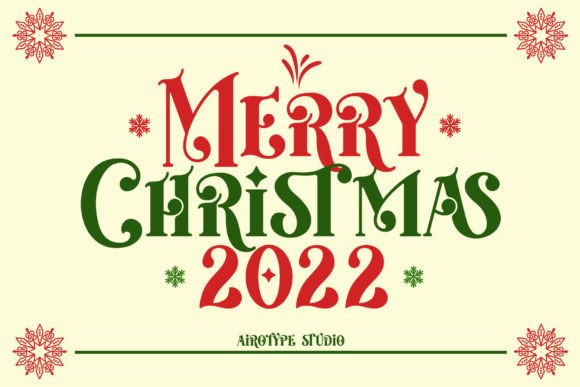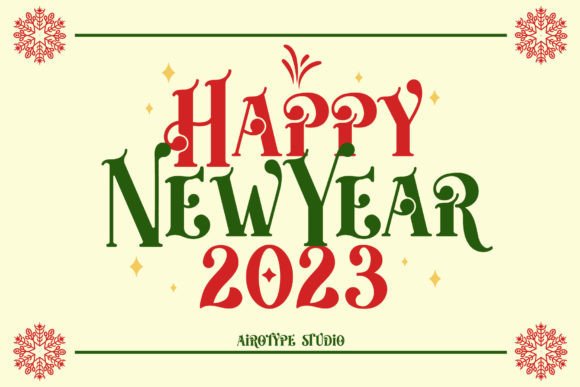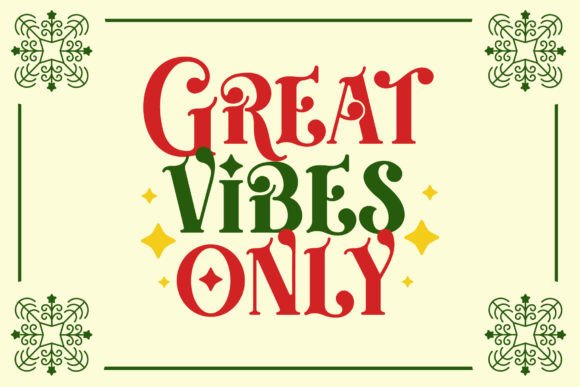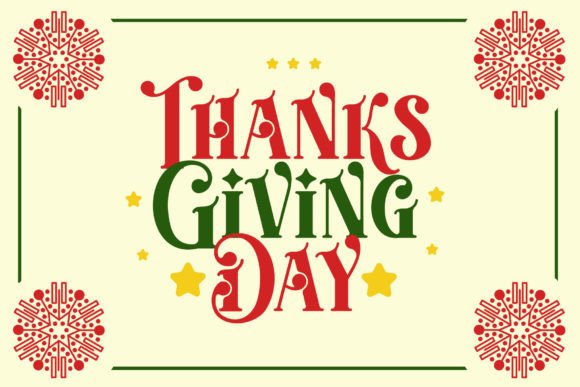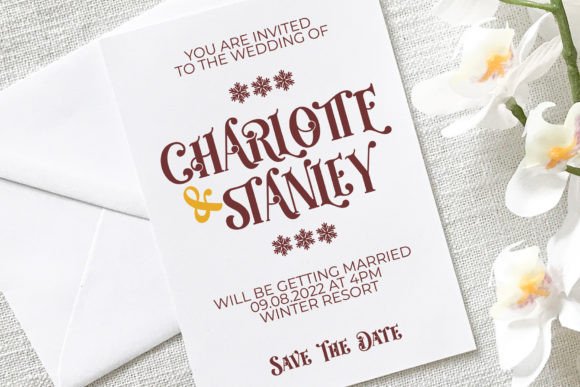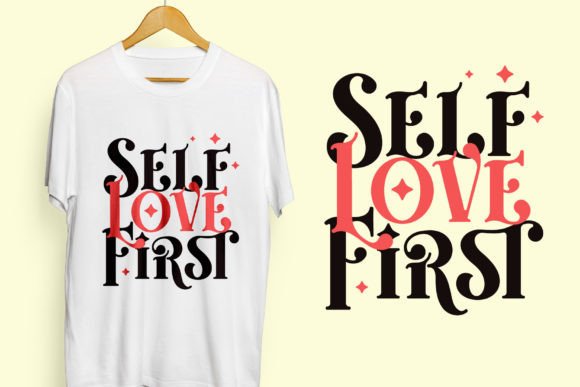
Introduction to Christmas Moonday Font
Christmas Moonday is an elegant and festive display font.
Key Features of Christmas Moonday Font
Why Choose Christmas Moonday Font?
Christmas Moonday Font offers exceptional quality and versatility, making it a valuable addition to your design toolkit. Whether you’re creating for personal projects or commercial use, Christmas Moonday Font delivers professional results.